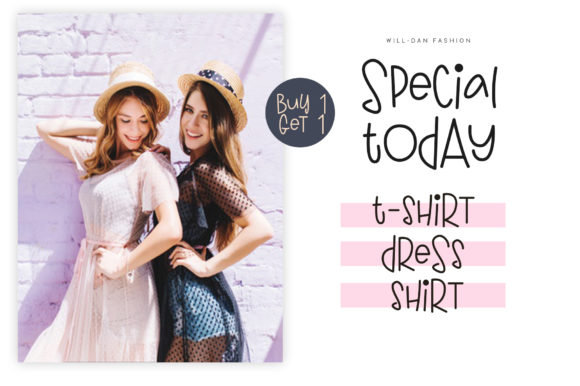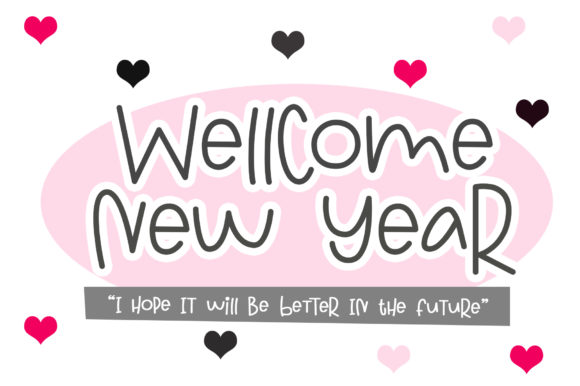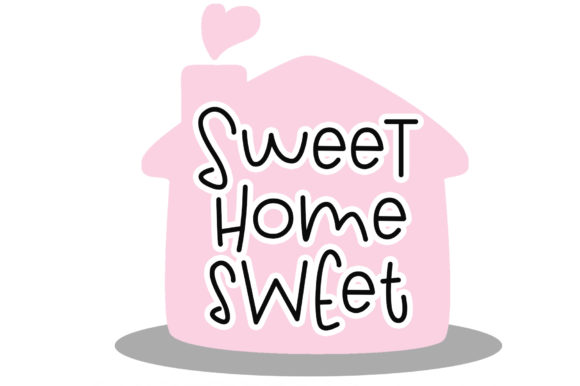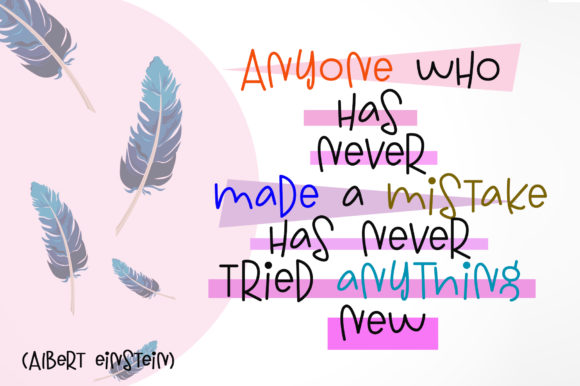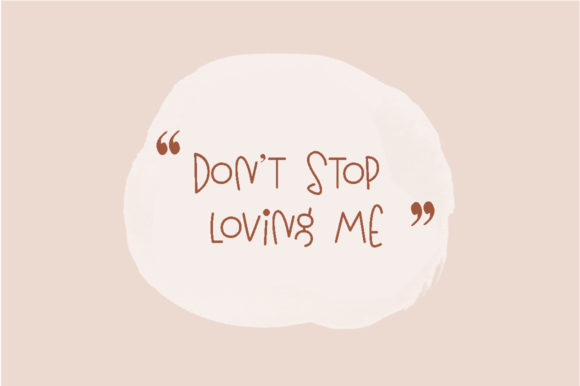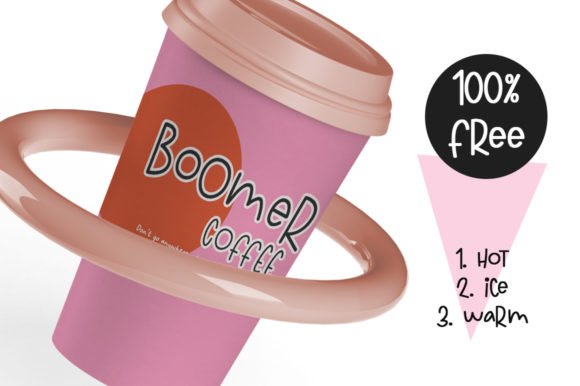
Fun Climbing Font
About Fun Climbing Font
Fun Climbing is a lively and friendly handwritten font that adds a playful and energetic vibe to any design project. With its whimsical and dynamic letterforms, this font is perfect for creative endeavors that aim to capture attention and evoke a sense of fun.
The unique charm of Fun Climbing lies in its handwritten style, which adds a personal touch and a sense of authenticity to your designs. Whether you’re creating inspirational wall posters, branding materials, social media graphics, or any other creative project, Fun Climbing brings a sense of joy and excitement to the forefront.
The lively and energetic nature of Fun Climbing makes it a great choice for designs that require a touch of playfulness. It can be used to convey a light-hearted and friendly tone, making it ideal for children’s products, event invitations, party decorations, and any design that aims to engage and entertain.
The versatility of Fun Climbing allows it to adapt to various contexts, both in print and digital media. Its legibility remains intact even in smaller sizes, ensuring that your message is effectively communicated. However, it’s worth noting that due to its handwritten nature, some characters may have variations and a slightly irregular appearance, which adds to its unique and playful charm.
When using Fun Climbing, consider pairing it with complementary fonts to create a balanced and harmonious design. You can combine it with clean and modern sans-serif fonts for a contemporary look, or pair it with decorative script fonts for a more eclectic and artistic feel.
Overall, Fun Climbing is an excellent choice for designers seeking a fun and friendly handwritten font that brings a sense of joy and playfulness to their projects. Its ability to capture attention and communicate a lighthearted message makes it well-suited for a wide range of creative endeavors. So, let your imagination run wild and embrace the lively spirit of Fun Climbing in your designs!